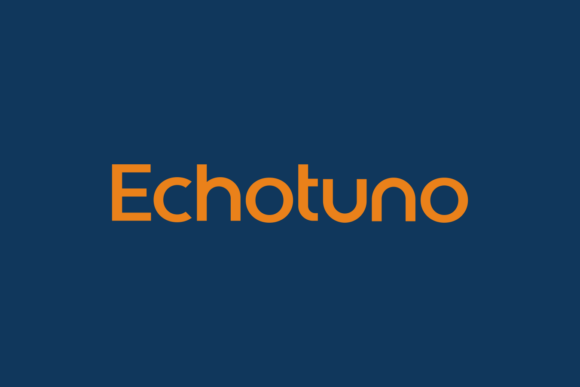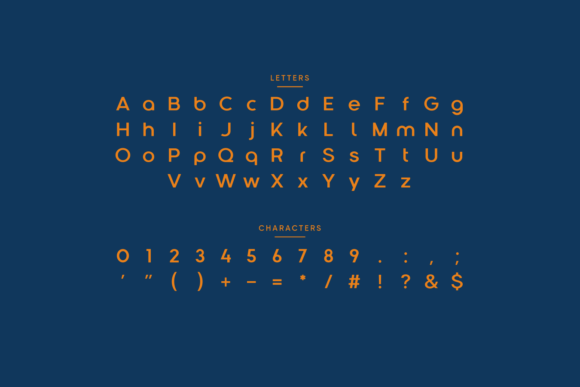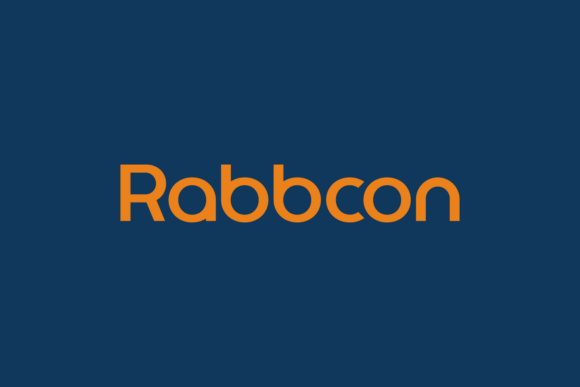
Introduction to Quaroly Font
Quaroly is a meticulously crafted typeface designed specifically for logos, branding, headers, and titling.
With a sophisticated modern look that is tailored for impressive logos and branding materials, this font ensures your designs leave a lasting impression Quaroly is a contemporary typeface that presents a sci-fi, modern, and minimalist style, this typeface is suitable for various types of your design.
Key Features of Quaroly Font